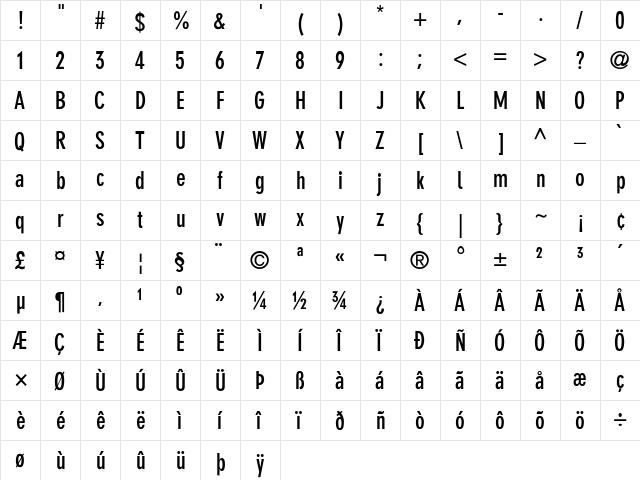
DINNeuzeitGrotesk-BoldCond DINNeuzeitGrotesk-BoldCond
DINNeuzeitGrotesk-BoldCond
Design Context for DINNeuzeitGrotesk-BoldCond Typeface
DINNeuzeitGrotesk-BoldCond takes a clean, functional approach — its unadorned letterforms prioritise legibility and work reliably across screen and print environments. Its bold stroke weight gives it real presence on the page. The condensed width makes it efficient for tight spaces without sacrificing legibility.
Well-suited to navigation labels, product packaging, and anywhere legibility at scale is essential.
Font Pairing: Use DINNeuzeitGrotesk-BoldCond for headlines alongside a lighter-weight sans or serif for body copy to establish clear visual hierarchy.
Pro Tip: Use DINNeuzeitGrotesk-BoldCond tightly set in headlines and banners — its condensed proportions make it ideal for maximum impact in minimum horizontal space.